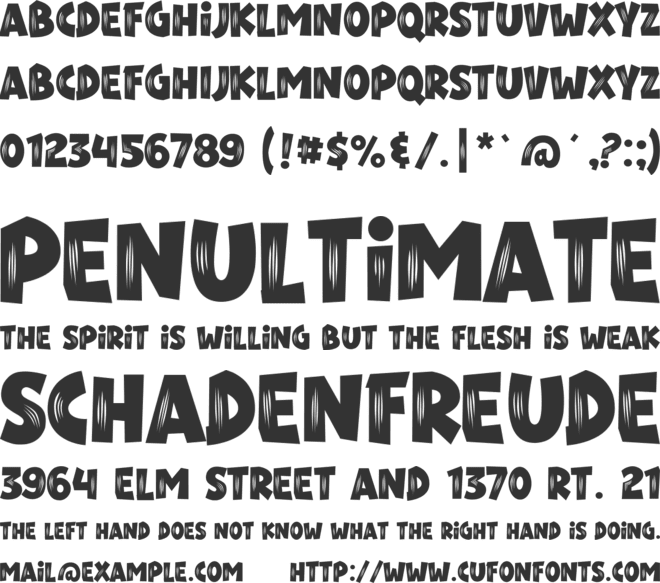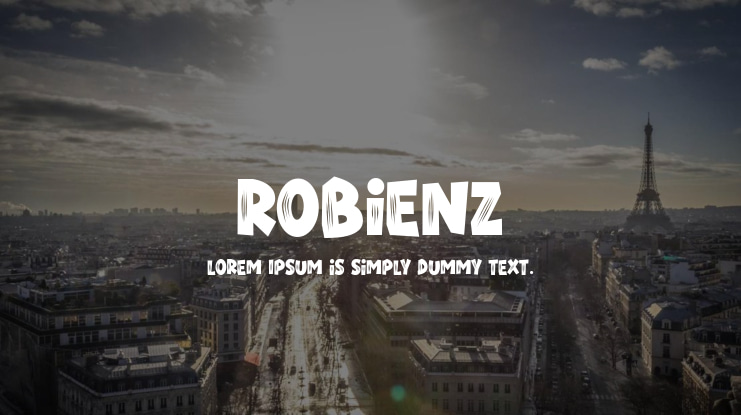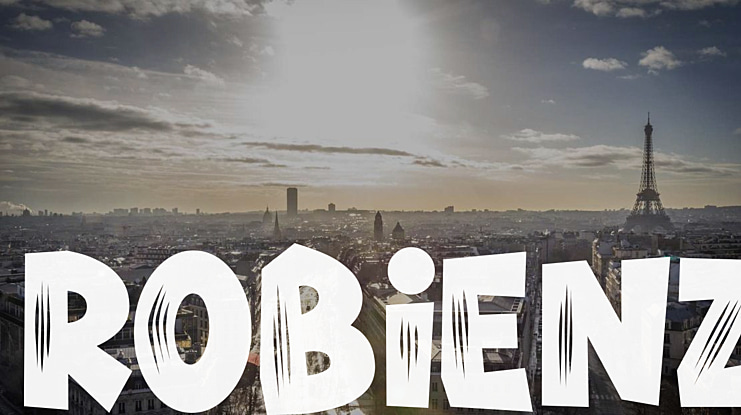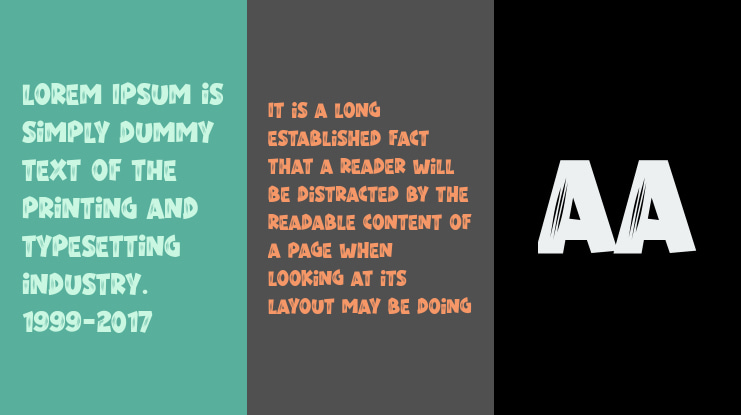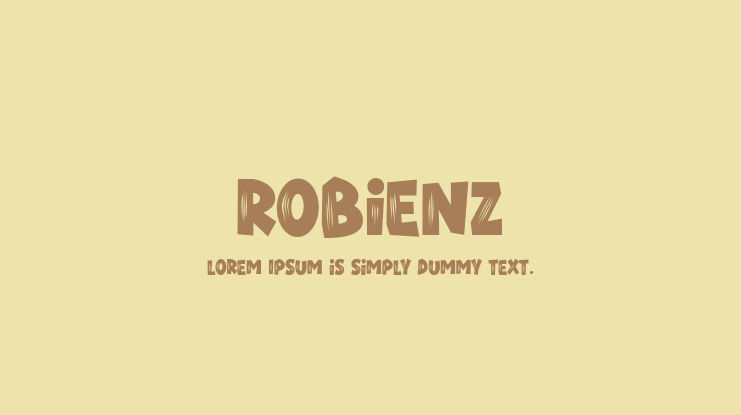
Robienz Font
Introducing Robienz, an exciting and unique display font that captures attention. Incorporate it into your creative projects and witness the amazing outcome! Whether you're designing cards, promotional ads, social media posts, or product packaging, Robienz will add a touch of greatness to your work.